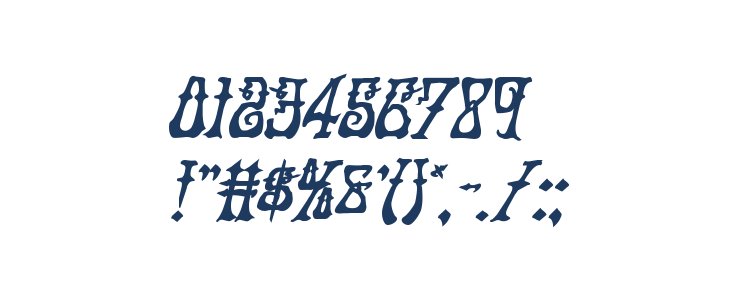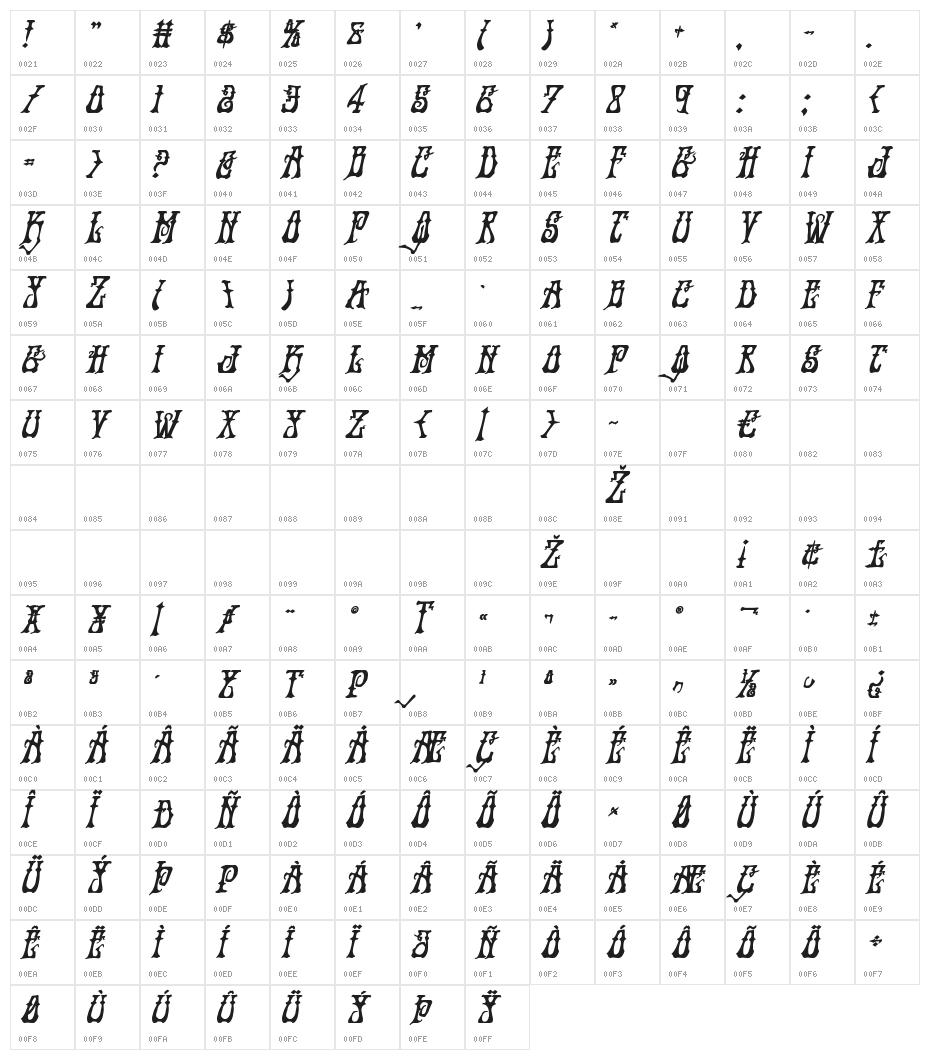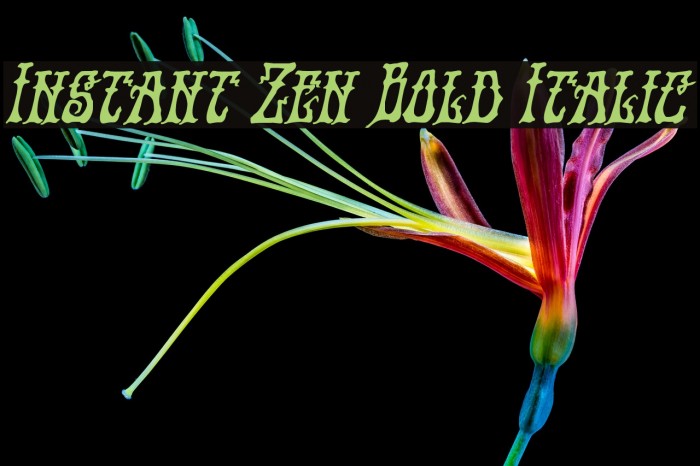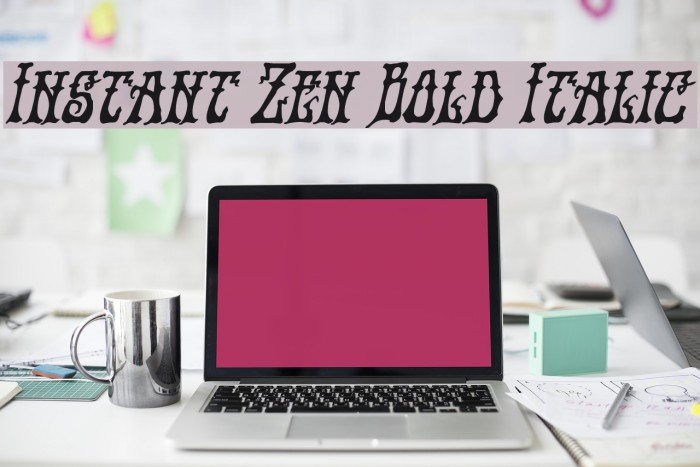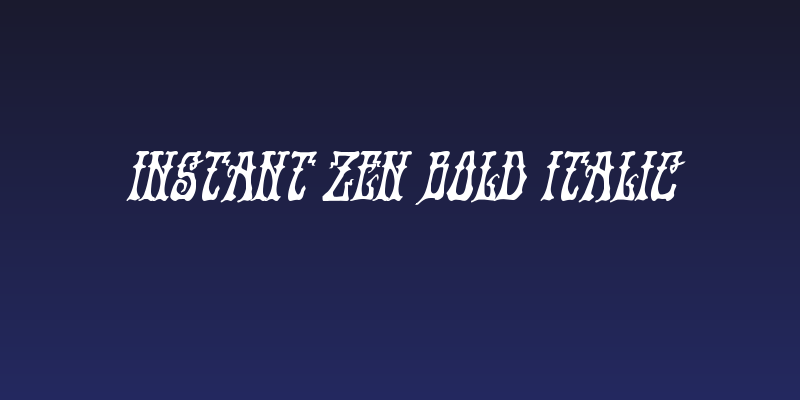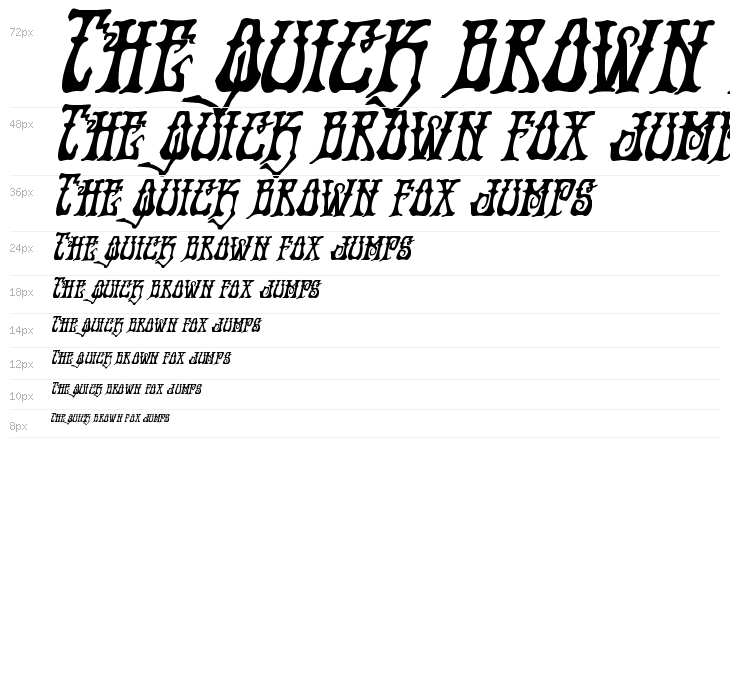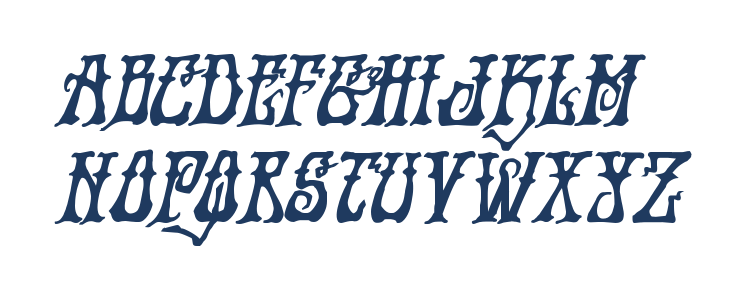
Instant Zen Bold Italic Font
Instant Zen Bold Italic Description
This font features a bold and italicized style with a distinct decorative flair. The characters are designed with sharp, angular edges and unique flourishes that give it a dynamic and edgy appearance. The uppercase and lowercase letters maintain a consistent style, with exaggerated serifs and intricate details that add to its overall visual impact. The numbers and special characters follow the same design principles, ensuring a cohesive look across all elements. This font's boldness and decorative nature make it stand out, making it ideal for projects that require a strong visual statement.
| Proposed Projects | Ideal for posters, album covers, branding projects, and any design requiring a bold, artistic touch. |